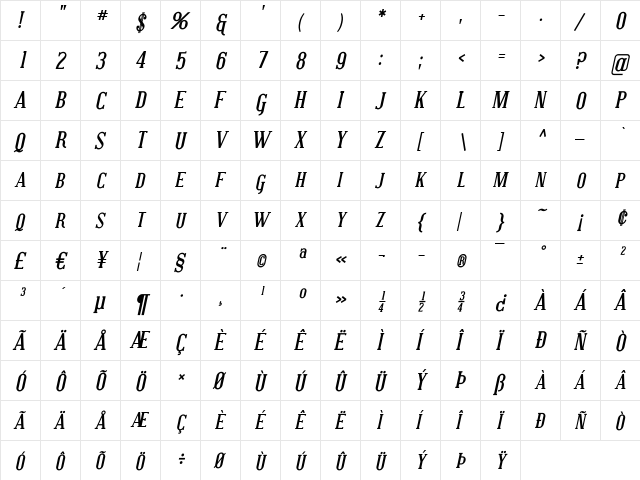
Covington SC Bold Italic
| Designer | Derek Vogelpohl |
Design Context for Covington SC Typeface
Covington SC takes a measured approach to typography — its balanced proportions and neutral character make it a reliable workhorse for both digital and print work. The slanted form adds forward momentum and visual energy. The heavy weight commands attention and anchors typographic hierarchies.